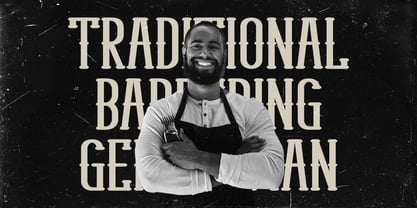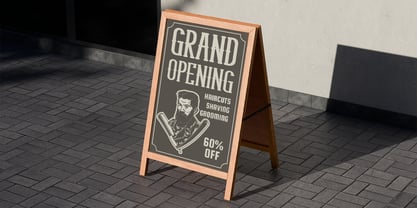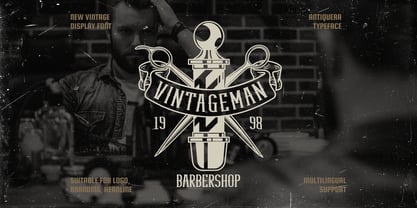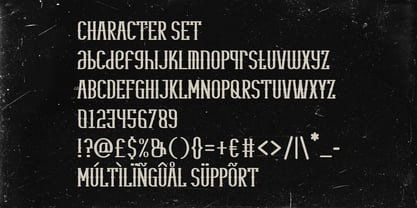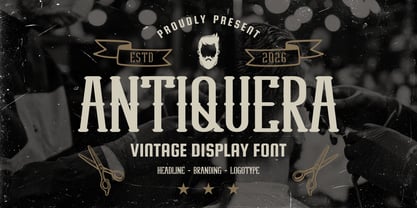
Antiquera
by Shanaf
The Antiquera Font Family was designed by Yesie Erma Yunita and published by Shanaf. Antiquera contains 1 styles. More about this family
Antiquera Classic Vintage Font is built with strong proportions and a confident visual rhythm. The letterforms appear tall and solid, with medium to bold weight that holds attention at large sizes. Each character shows firm vertical strokes combined with carefully shaped curves. The contrast between thick stems and subtle inner cuts creates clarity without losing a classic feel. Terminals are slightly squared, giving the font a grounded and reliable tone. Spacing is balanced, allowing words to stay readable in logos and headlines. The structure feels stable, which helps brand names appear trustworthy and established. This font carries a traditional serif character that fits long term branding needs. It avoids decorative excess, focusing instead on form and presence. The overall construction supports strong visual hierarchy in brand communication. The style leans clearly toward classic and vintage, with a strong barbershop and heritage influence. Antiquera Classic Vintage Font works well for logos, branding systems, posters, signage, packaging, headlines, magazine titles, book covers, business cards, stickers, and invitations. It fits businesses that value tradition, craftsmanship, and identity, such as barbershops, grooming studios, cafes, coffee roasters, restaurants, beverage brands, workshops, and local stores. The font performs best when used for display purposes where character matters. It supports multilingual content, making it suitable for international branding projects. The tone feels masculine, confident, and timeless, without feeling outdated. This makes the font suitable for brands that want a classic image with clear communication. It helps create strong brand recall across print and digital media.
Designers: Yesie Erma Yunita
Foundry: Shanaf